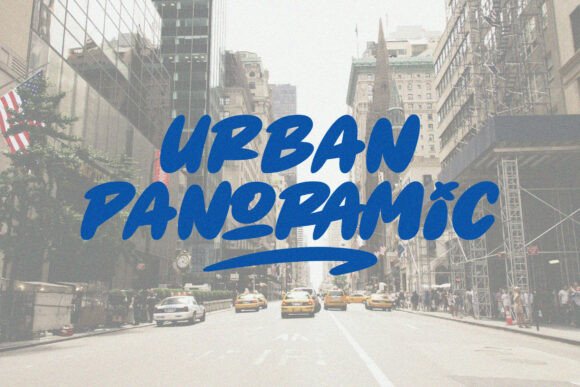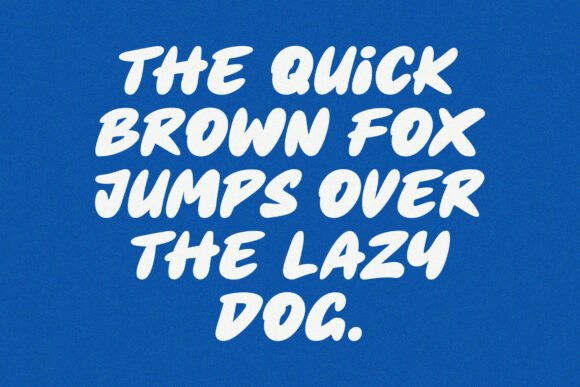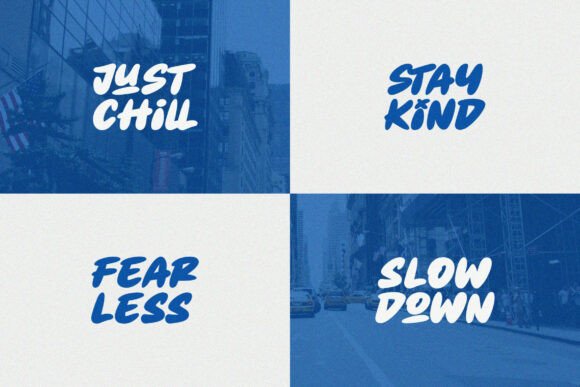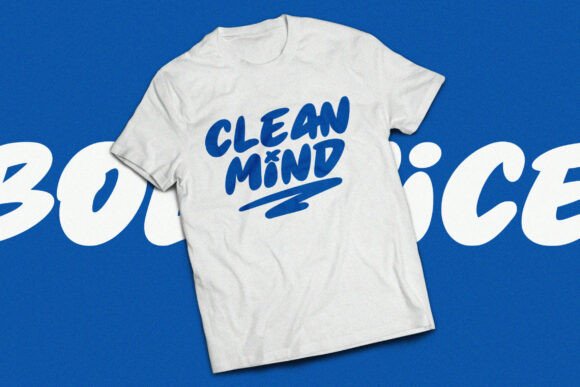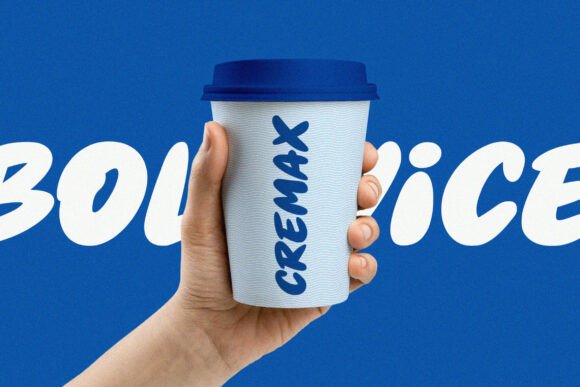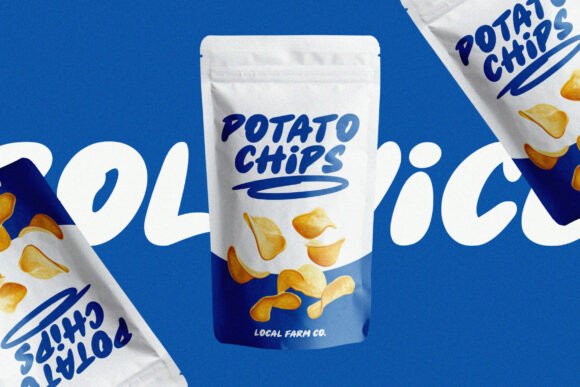
Introducing Boldvice Font: The Ultimate Modern Display Font for Confident Designs
In the world of typography, a font can make or break a design. When it comes to creating eye-catching headlines, bold statements, and clean visual identities, the right font is essential. That’s where Boldvice comes in – a modern bold display font designed to bring confidence, clarity, and energy to your designs. With its unique blend of strength and approachability, Boldvice is the perfect choice for designers and crafters looking to make a lasting impression.
The Characteristics of Boldvice Font
So, what makes Boldvice stand out from the rest? This modern bold display font boasts thick, rounded shapes that exude confidence and energy. Its smooth flow and carefully crafted letterforms create a sense of harmony and balance, making it perfect for a wide range of design applications. Whether you’re working on a bold headline, a striking logo, or a clean visual identity, Boldvice has got you covered.
Inspiration from Bold Lettering and Contemporary Branding Styles
Boldvice draws inspiration from the world of bold lettering and contemporary branding styles. By combining the best elements of these styles, Boldvice creates a unique and distinctive look that’s both modern and timeless. This font is perfect for designers who want to create bold, eye-catching designs that stand out from the crowd while maintaining a friendly and approachable tone.
The Benefits of Using Boldvice Font
So, why choose Boldvice for your design projects? Here are just a few benefits of using this versatile font:
- Confidence and Energy: Boldvice is designed to bring confidence and energy to your designs. Its bold, rounded shapes and smooth flow create a sense of dynamism and movement.
- Strength and Approachability: This font strikes the perfect balance between strength and approachability. Whether you’re working on a bold headline or a clean visual identity, Boldvice is the perfect choice.
- Eyecatching Headlines: With its bold, attention-grabbing letterforms, Boldvice is perfect for creating eye-catching headlines that demand attention.
- Clean Visual Identities: Boldvice is also ideal for creating clean, modern visual identities that showcase your brand’s personality and style.
Who Can Benefit from Boldvice Font?
Boldvice is a versatile font that can benefit a wide range of designers and crafters, including:
- Graphic Designers: Whether you’re working on a logo, brochure, or website, Boldvice is a great choice for creating bold, eye-catching designs.
- Branding Experts: If you’re looking to create a clean, modern visual identity for your brand, Boldvice is the perfect font.
- Digital Artists: Boldvice is also ideal for digital artists who want to add a bold, modern touch to their artwork.
- Crafters: Whether you’re working on a DIY project or creating handmade crafts, Boldvice can add a professional, polished touch to your designs.
In conclusion, Boldvice is a modern bold display font that’s perfect for designers and crafters looking to create confident, eye-catching designs. With its unique blend of strength and approachability, Boldvice is ideal for a wide range of design applications, from bold headlines to clean visual identities. So why wait? Try Boldvice today and take your designs to the next level!
Getting Started with Boldvice Font
- Experiment with Different Sizes: Boldvice looks great in a variety of sizes, from large headlines to smaller body text.
- Pair with Other Fonts: Try pairing Boldvice with other fonts to create a unique and distinctive look.
- Use in a Variety of Design Applications: Boldvice is versatile enough to be used in a wide range of design applications, from print to digital.
With its confidence-inspiring design and versatile nature, Boldvice is the perfect font for designers and crafters looking to make a lasting impression. So why wait? Try Boldvice today and see the difference it can make in your designs!